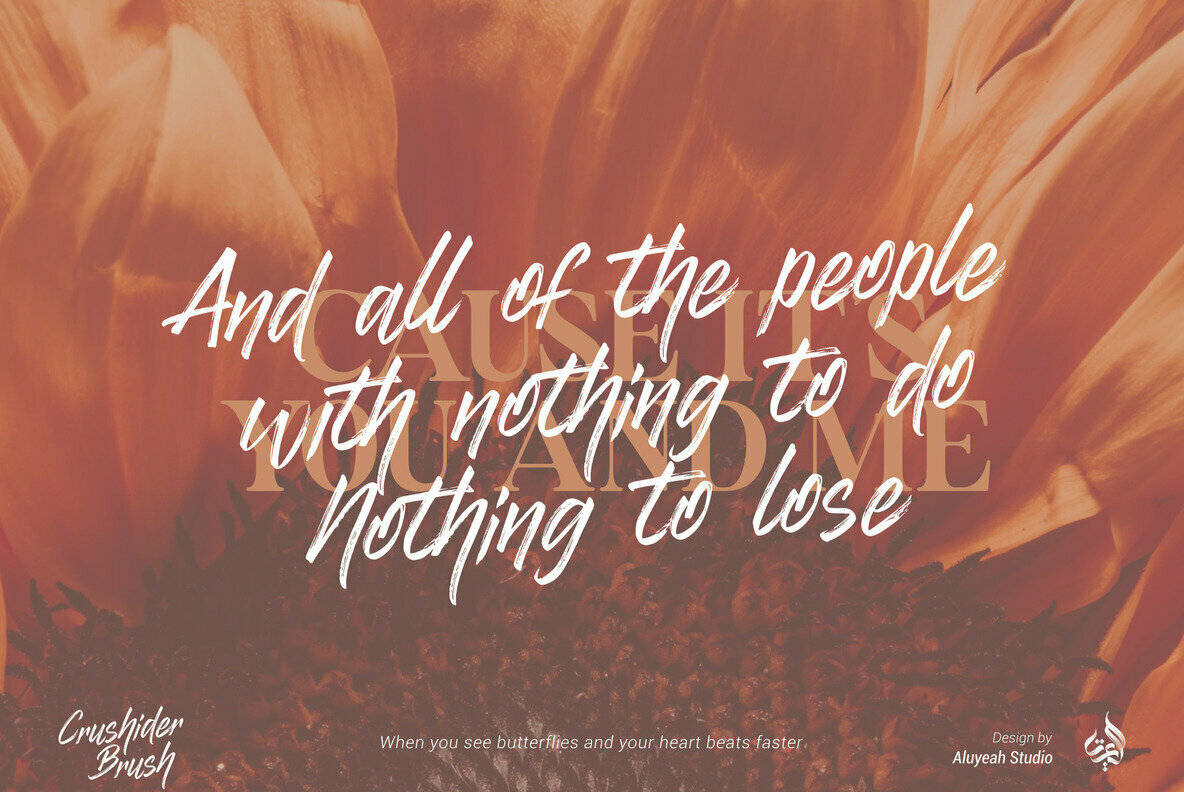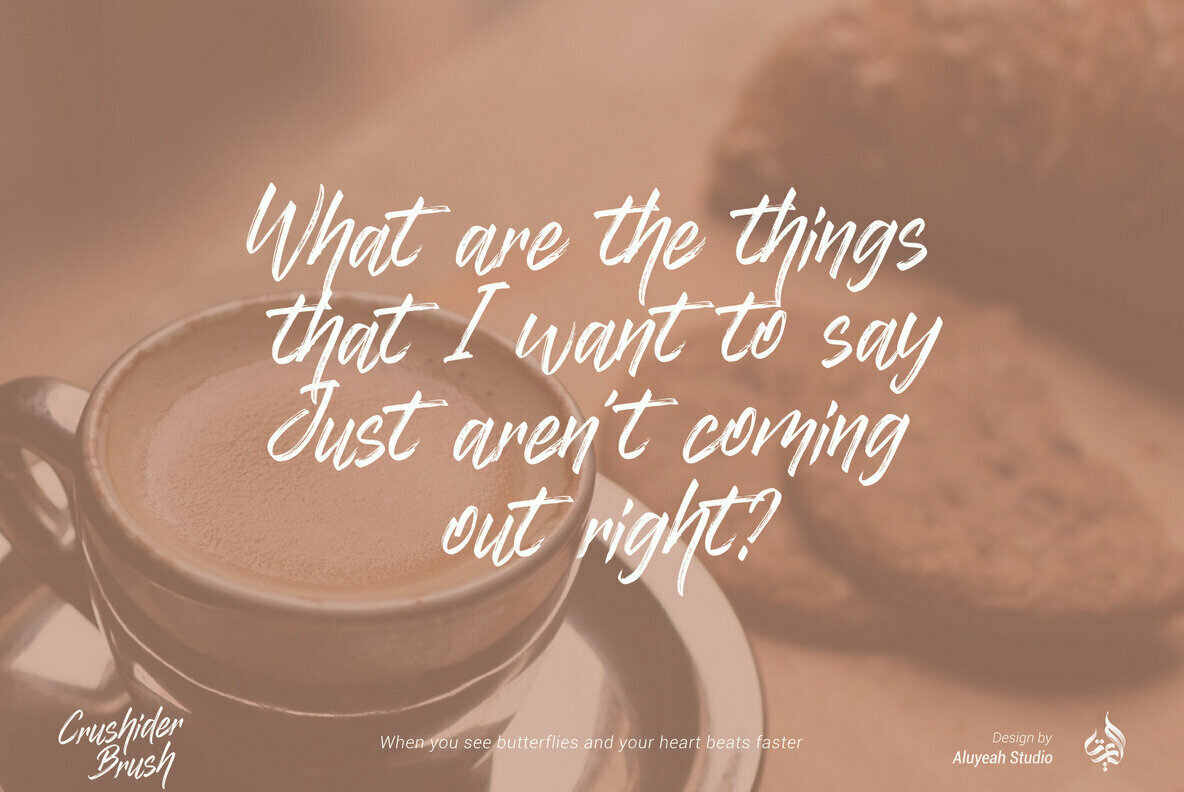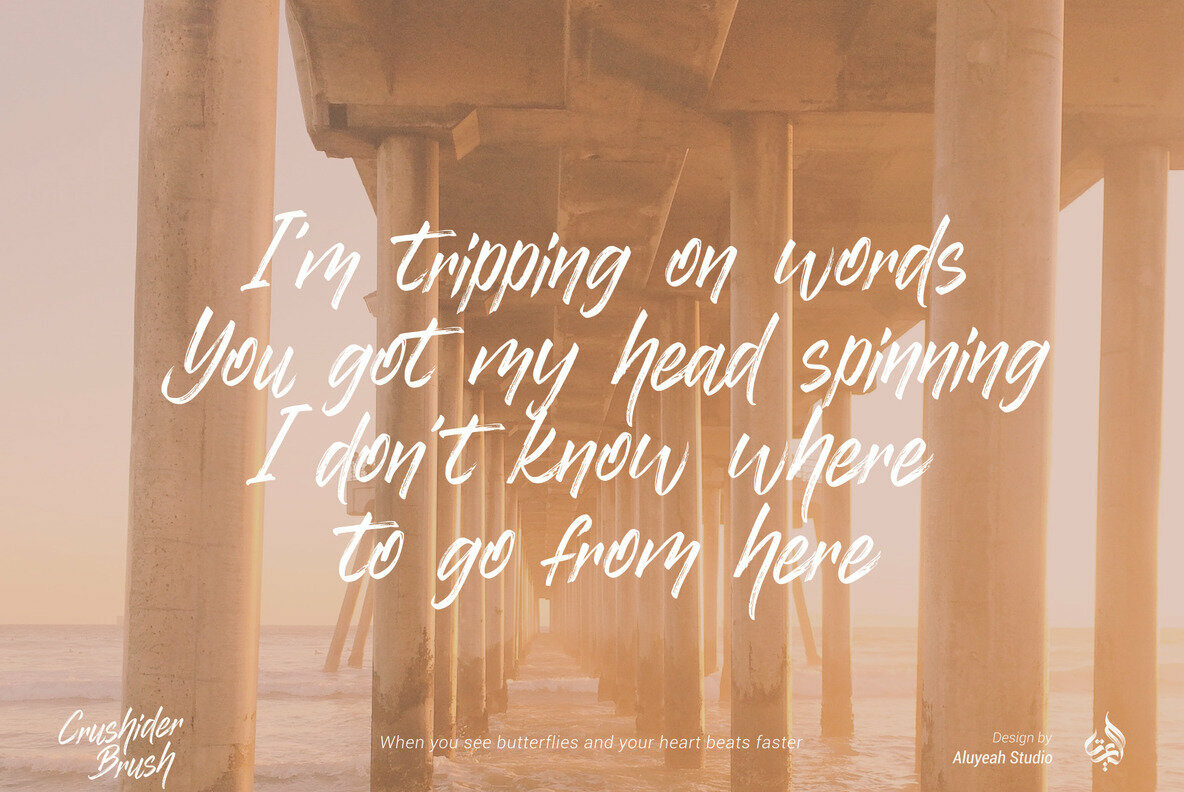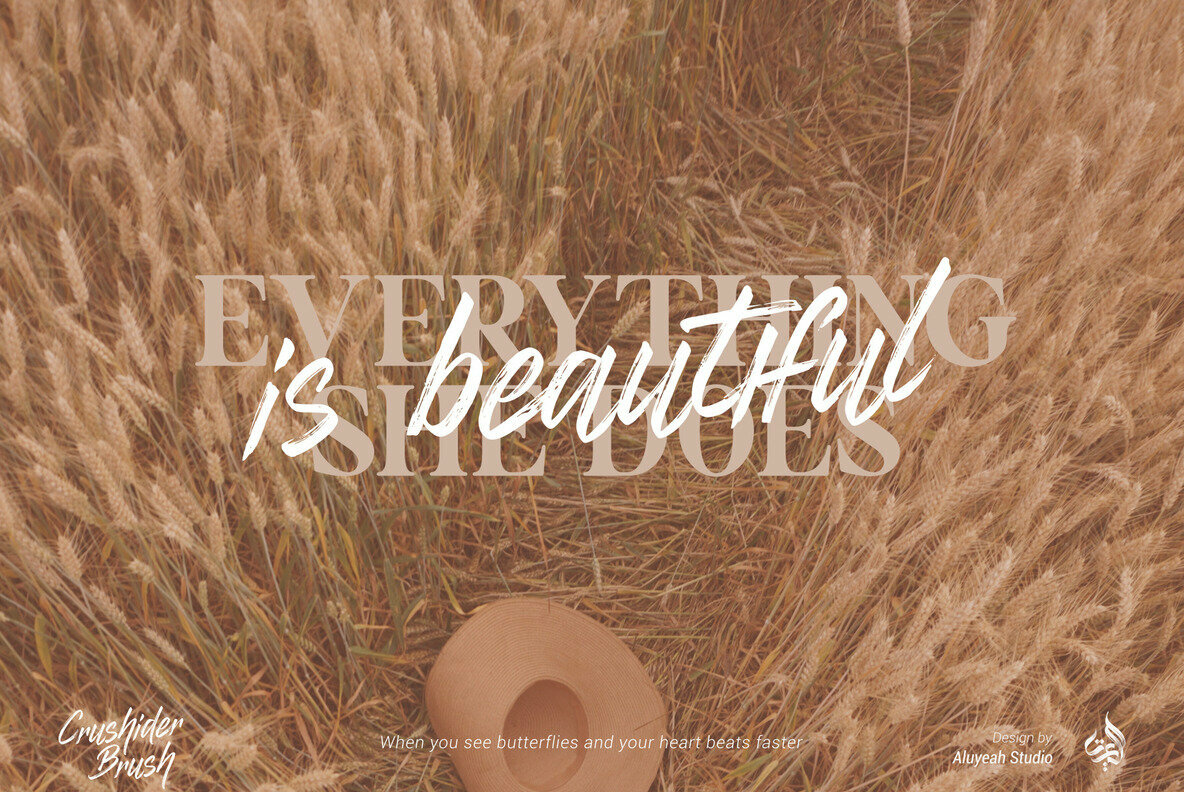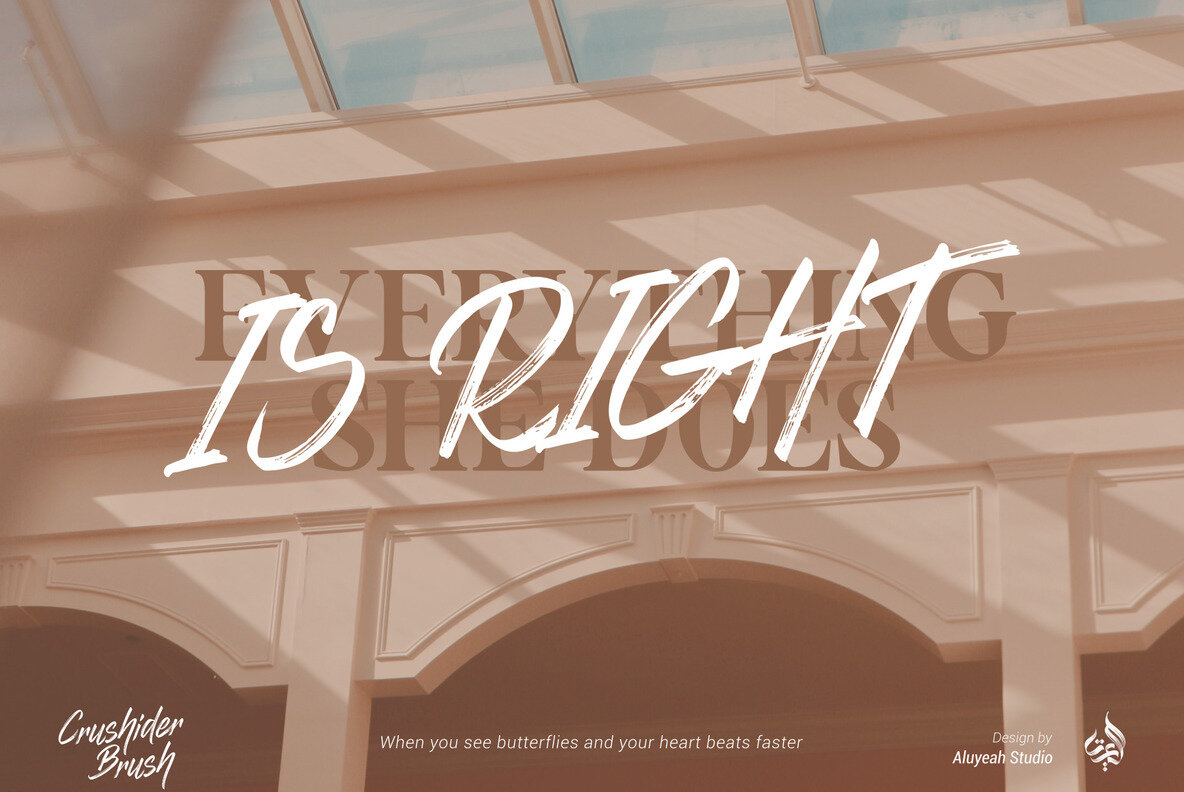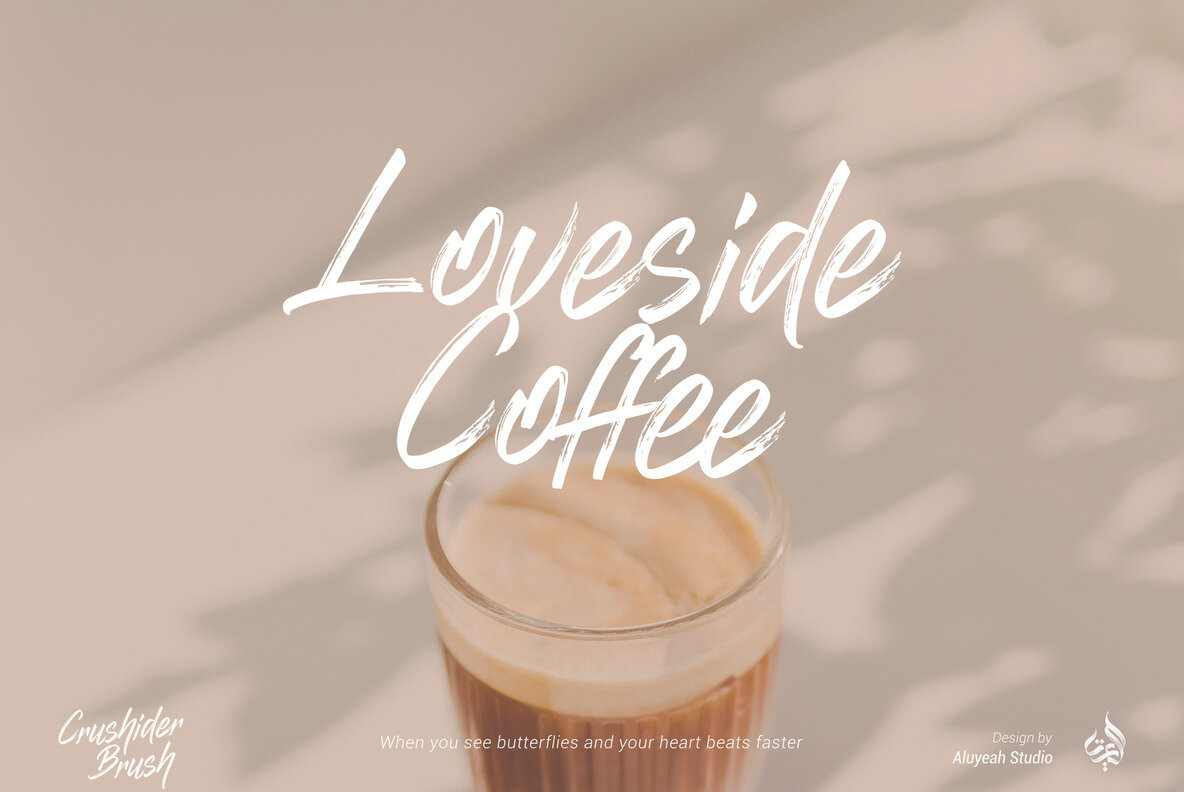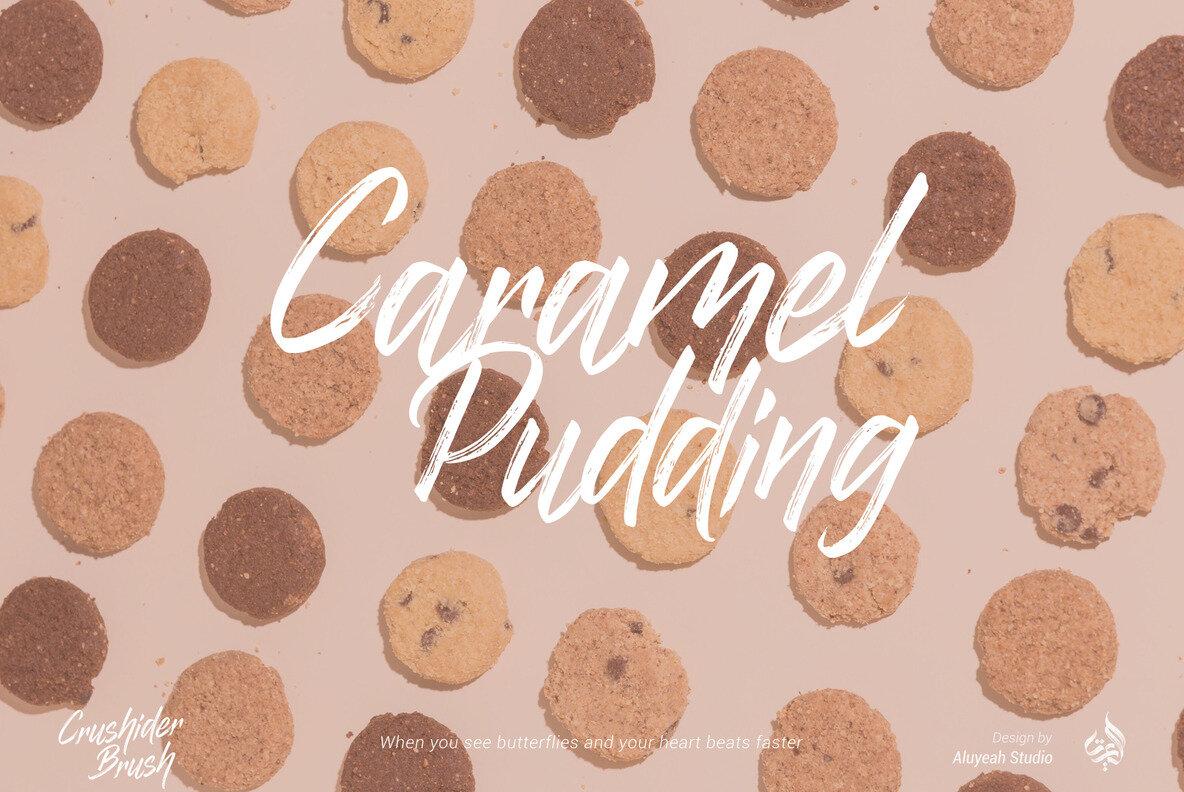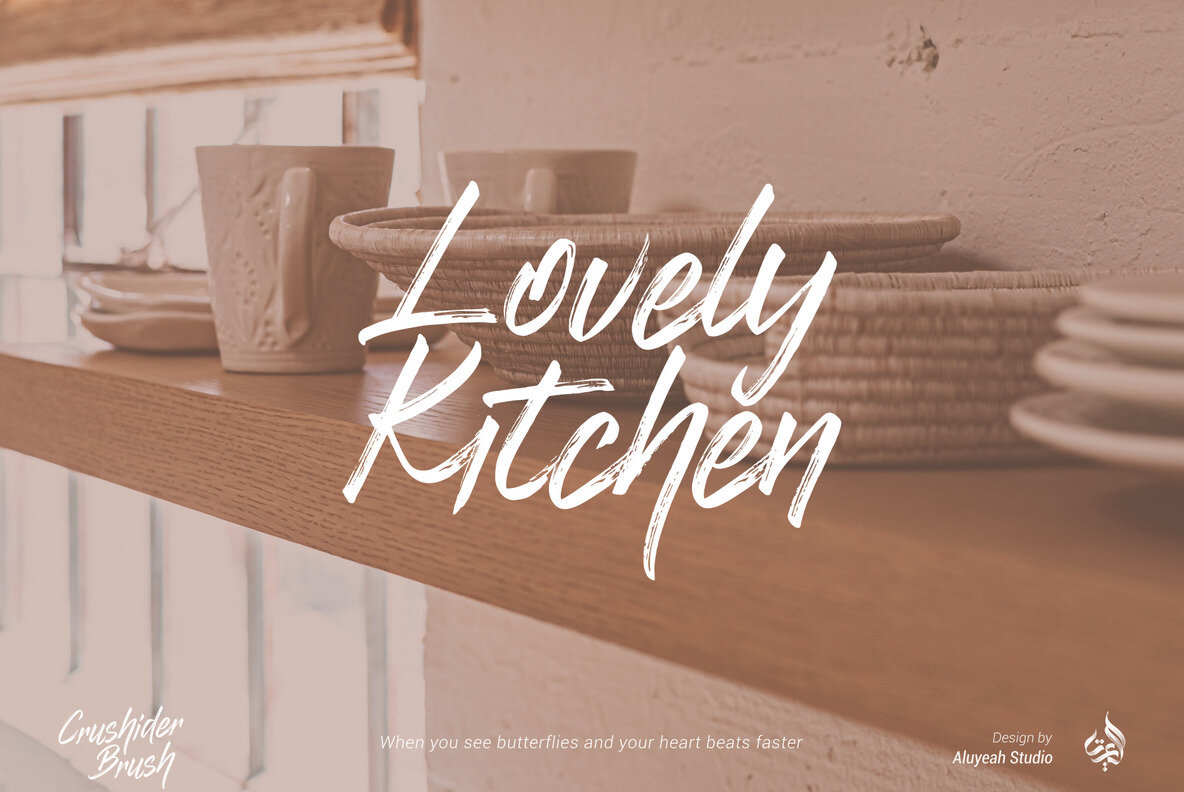
Crushider Font
Al Crushider Regular
Crushider Brush, inspired by the feeling when we see your crush, and you will see a lot of butterflies and your heart rate goes up. Crush + hider, mixed feelings that are addictive but you also want to get out of the situation.
Very suitable for magazine, headline, website, ads, product package and all type of design project you have.